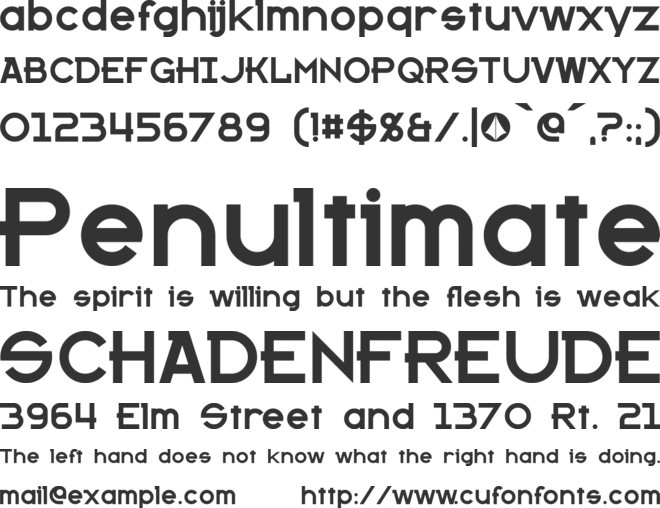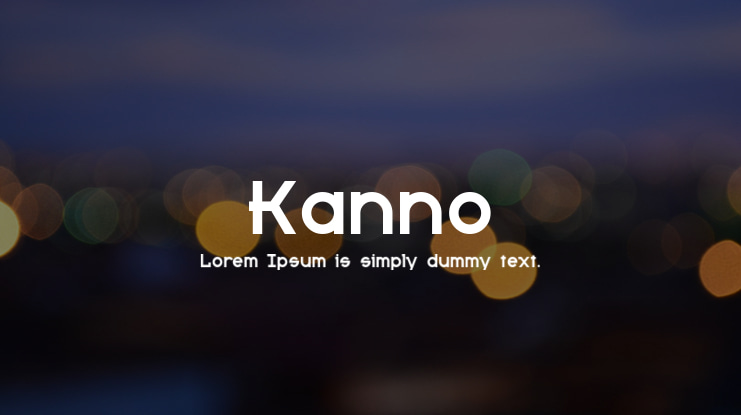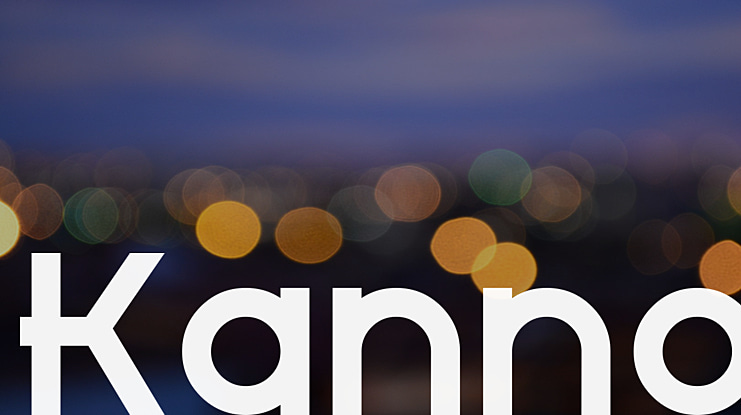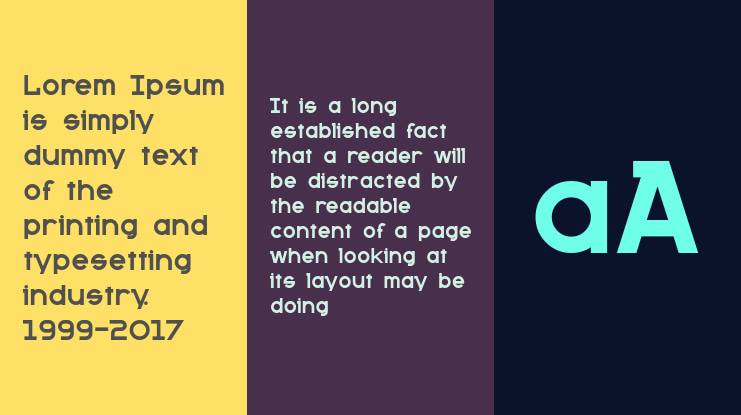
Kanno Font Family
Neale Davidson
Kanno is based heavily upon the title logo for the Macross Plus OVA series and named after the lead vocalist and composer, Yoko Kanno, who made that series exceptional. Includes full alphabet, extended punctuation, euro. Includes regular, bold, italic, and bold-italic versions.